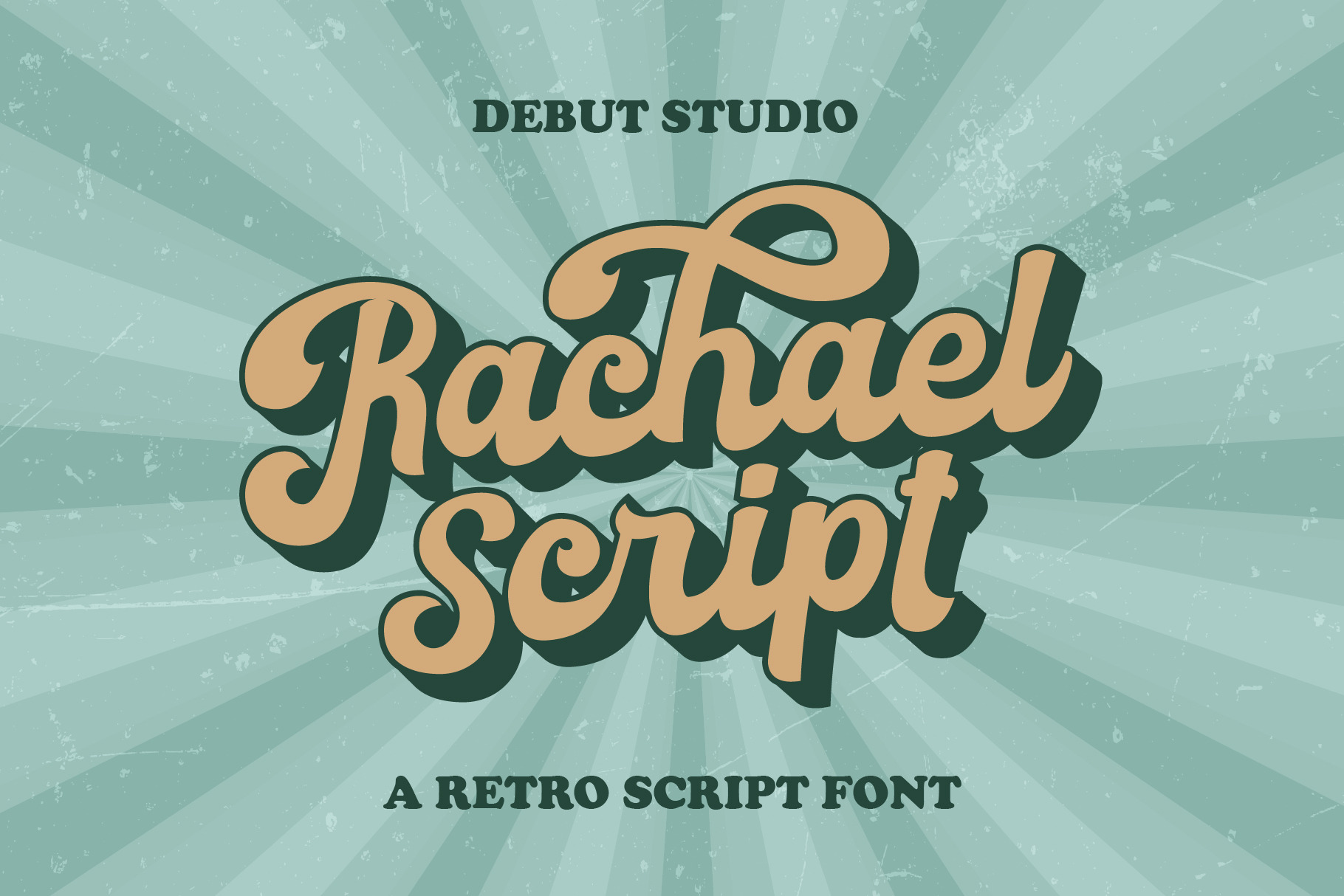
Rachael Script + Bonus Font
[UPDATE DESEMBER 2021 = adding Bonus Font Batuphat Script for Free] Rachael Script is Modern Script font with handlettering styles . It’s Allowing you to create awesome display text for your design. Rachael Script is suitable to use for any kind of designs like a Logotype, displays text, title, letterhead, and etc.
- Uppercase, Lowercase, Numerals, etc (585 Glyphs)
- Opentype alternates and PUA ENCODED
- Access alternate stylictic with number after character
or you can access alternate with add number 1, 2, 3, or 4 after letter. all uppercase and lowercase have one stylistic alternate, except b, d, h, k, l, t (have 1-14 alternate)